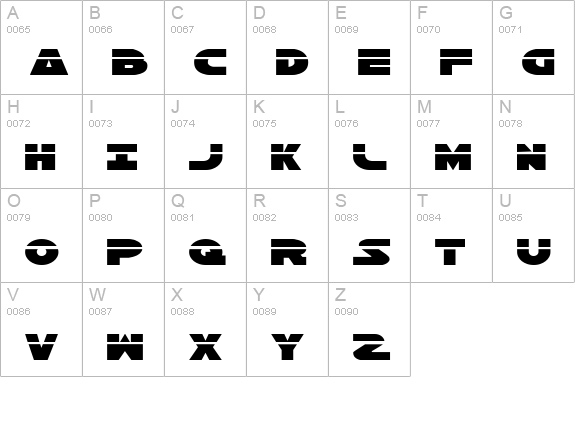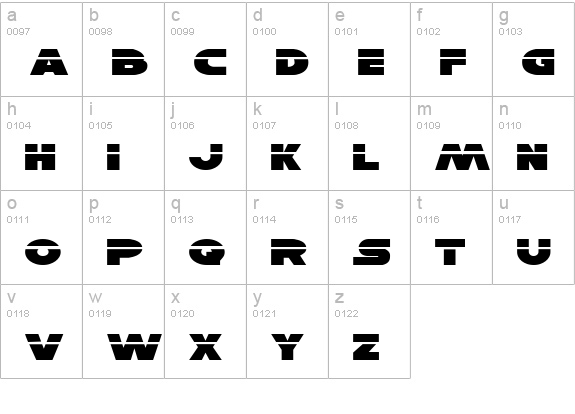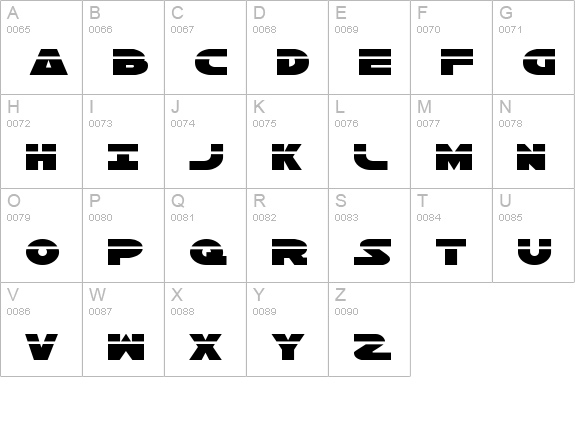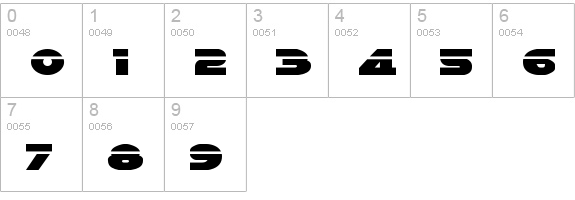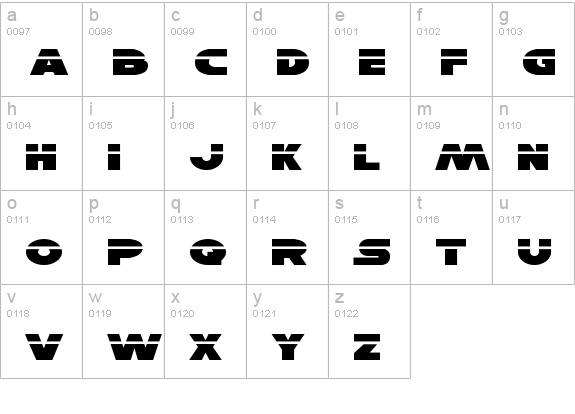
Han Solo Expanded Laser Font Details
Han Solo Expanded Laser is a distinctive, extended-width variant in the Han typeface family \xE2\x80\x94 well suited to design and typography projects.
Introducing the Han Solo Expanded Laser font, a bold and captivating typeface that is sure to make a lasting impression. This font effortlessly combines the rugged and daring spirit of everyone's favorite space smuggler, Han Solo, with a modern twist. Designed with meticulous attention to detail, Han Solo Expanded Laser features elongated letterforms and sharp edges that exude a sense of adventure and excitement. Its bold strokes and unique curves give each character a distinct presence, making it perfect for any project that requires a touch of rebelliousness. But what sets Han Solo Expanded Laser font apart is not just its exceptional design, but also its accessibility. We believe that creativity should never be limited, which is why this font is available for free download at FontsMarket.com. Now, you can freely unleash your imagination and bring the spirit of Han Solo to life in your designs, without any barriers. Whether you're creating a poster for a sci-fi convention, designing a logo for a futuristic brand, or adding a touch of intergalactic charm to your website, Han Solo Expanded Laser font will elevate your creations to new heights. Its versatility and eye-catching appeal ensure that your message will not only be heard but also remembered. So, don't miss out on this opportunity to embrace the spirit of Han Solo and add a touch of adventure to your designs. Download Han Solo Expanded Laser font for free at FontsMarket.com and let your creativity soar to the stars. May the force be with you!